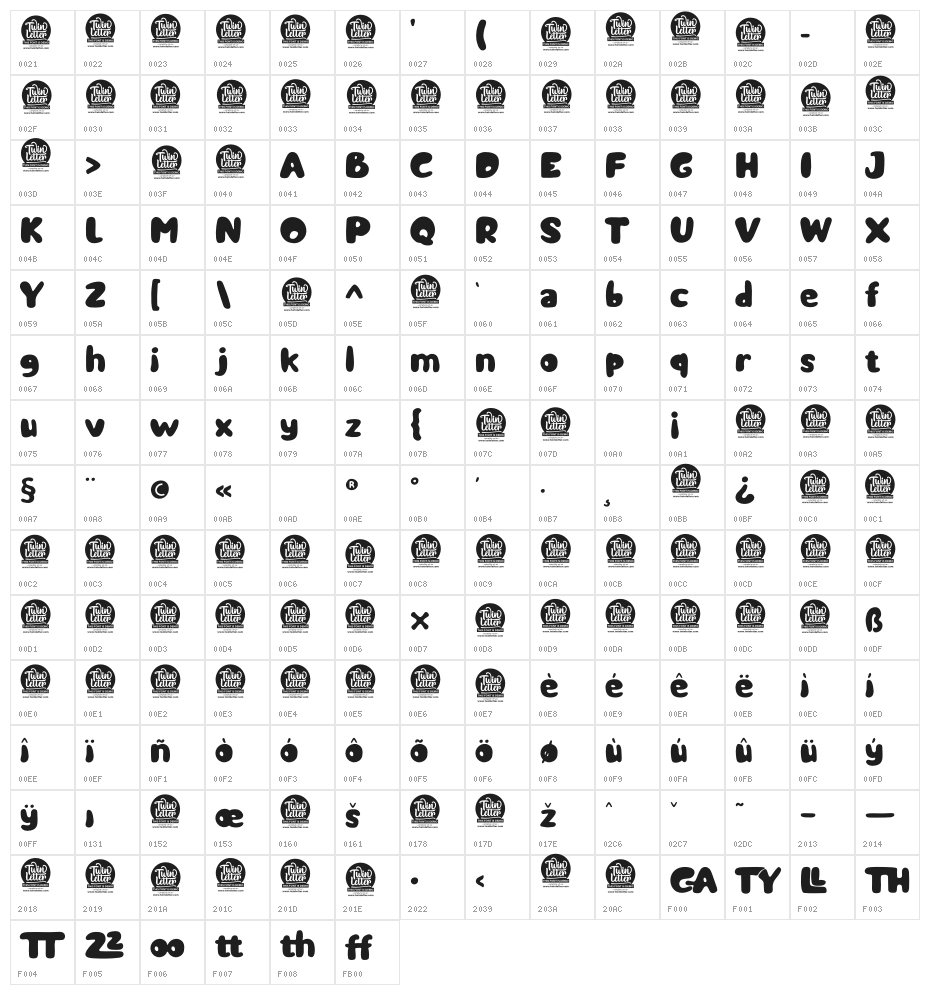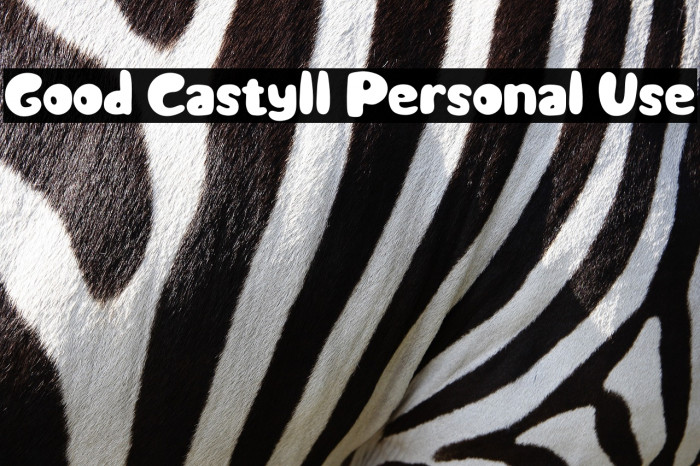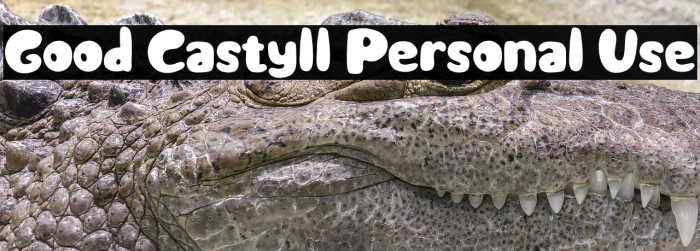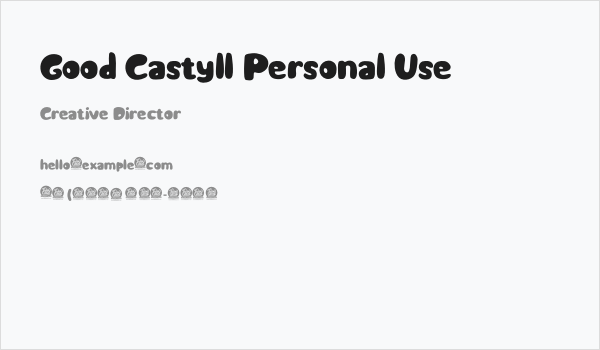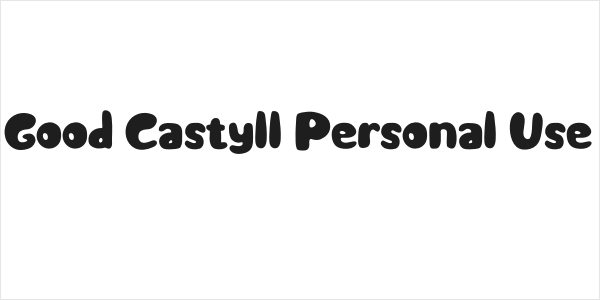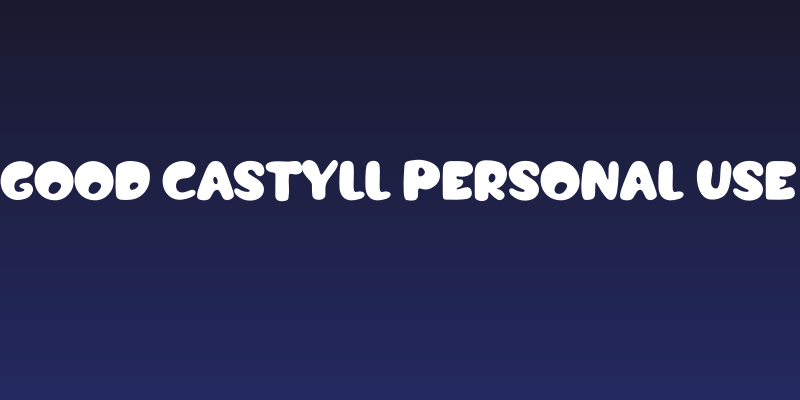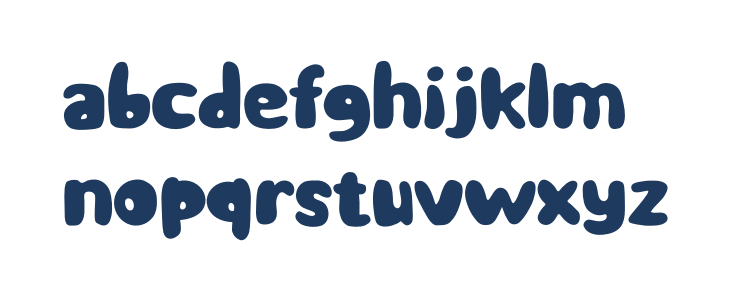
Good Castyll Personal Use Font
Good Castyll Personal Use Description
This font features a bold and playful design with rounded edges and a bubbly appearance. The characters are thick and have a consistent weight throughout, giving them a strong presence. The style is reminiscent of retro or vintage aesthetics, making it suitable for projects that require a fun and informal touch. The uppercase and lowercase letters maintain a uniform look, with slightly exaggerated curves that enhance its whimsical nature. The numbers and special characters follow the same design principles, ensuring a cohesive look across all elements.
| Proposed Projects | Ideal for children's books, playful branding, posters, and social media graphics. |